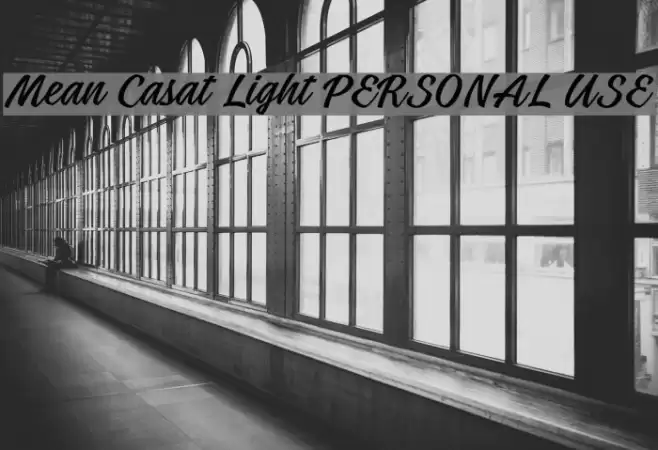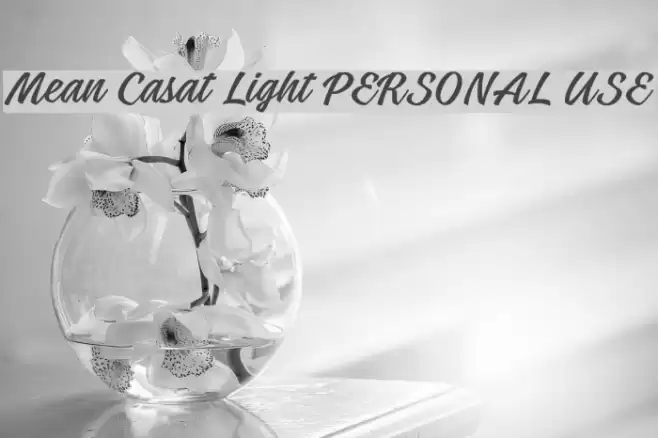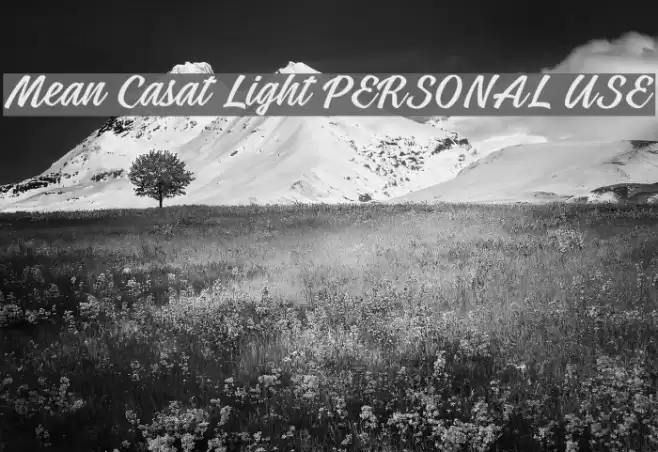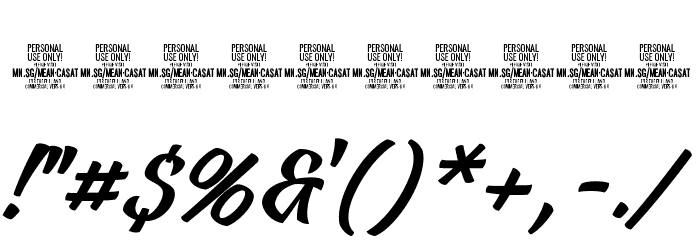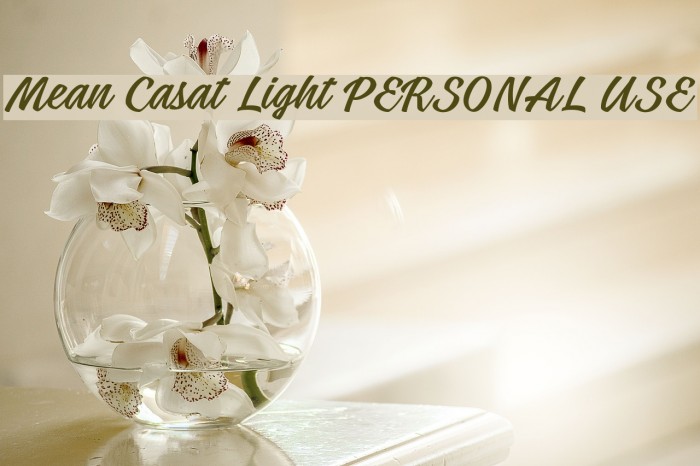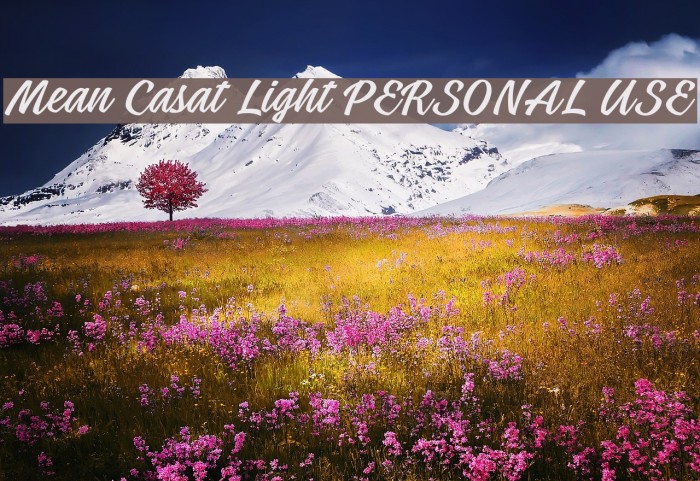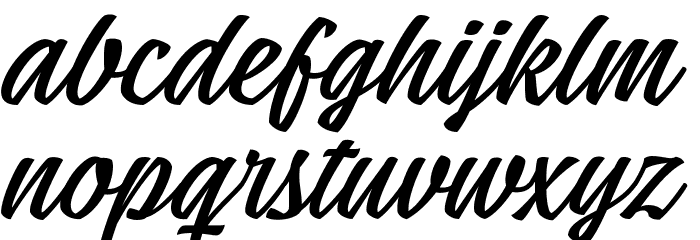
Mean Casat Light PERSONAL USE Font
Mean Casat Light PERSONAL USE Description
This font features a bold, cursive style with a modern flair. The characters are connected, creating a fluid and dynamic appearance. The uppercase letters are slightly more angular, while the lowercase letters maintain a smooth, flowing form. The font includes a full set of uppercase and lowercase letters, numbers, and a variety of special characters. Its bold strokes and consistent slant give it a strong presence, making it suitable for eye-catching designs. The overall look is both elegant and contemporary, ideal for projects that require a touch of sophistication.
A bold, cursive font with a modern and fluid style from Uncategorized fonts.
- Proposed Projects: Ideal for branding, invitations, posters, and social media graphics.
- Use Case: Logos, Headlines, Invitations